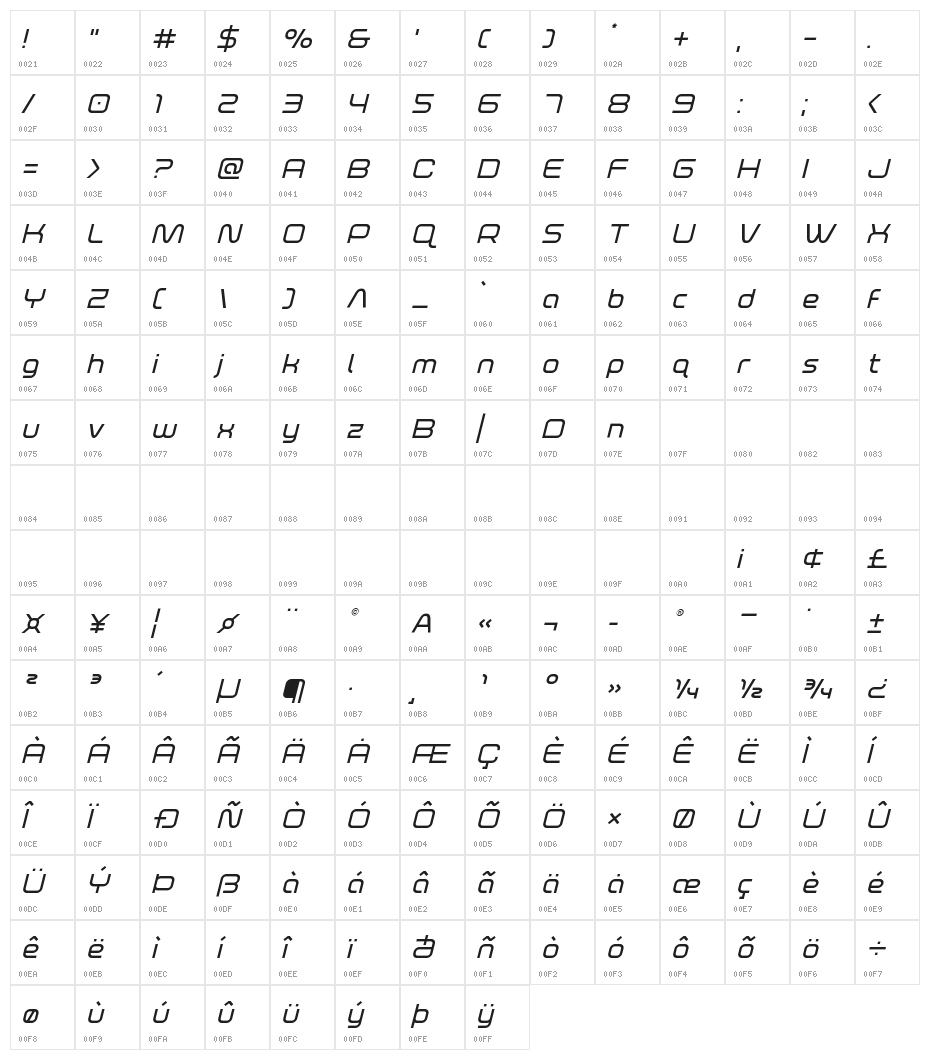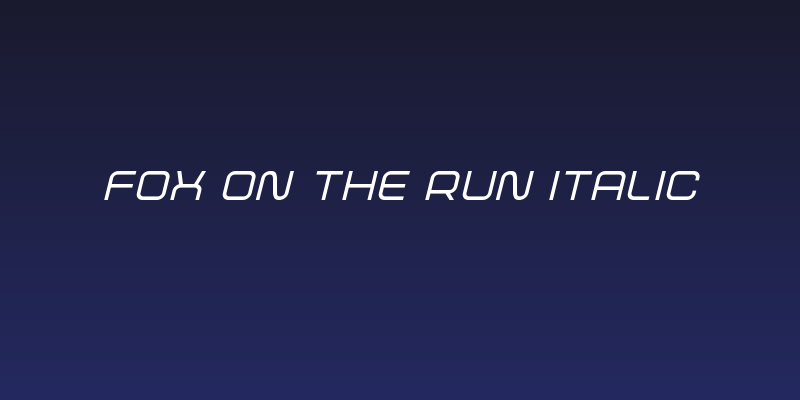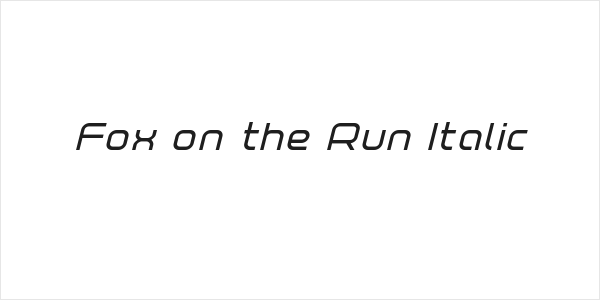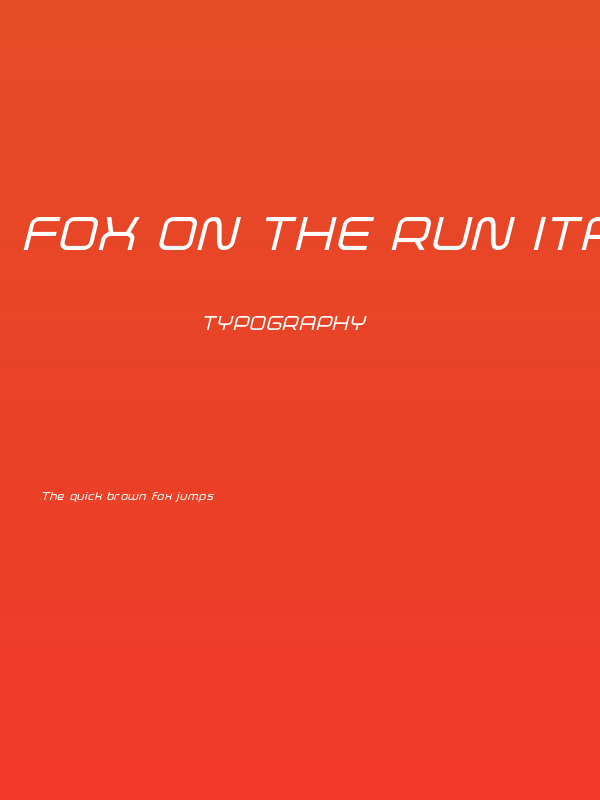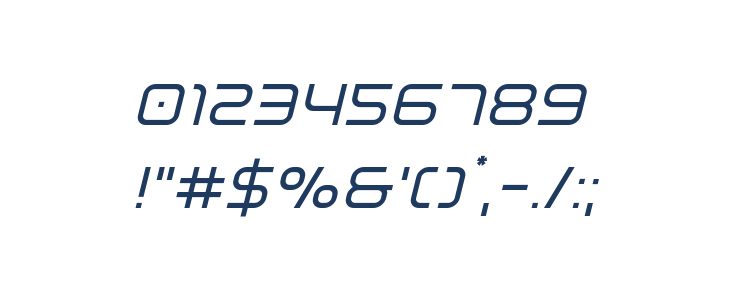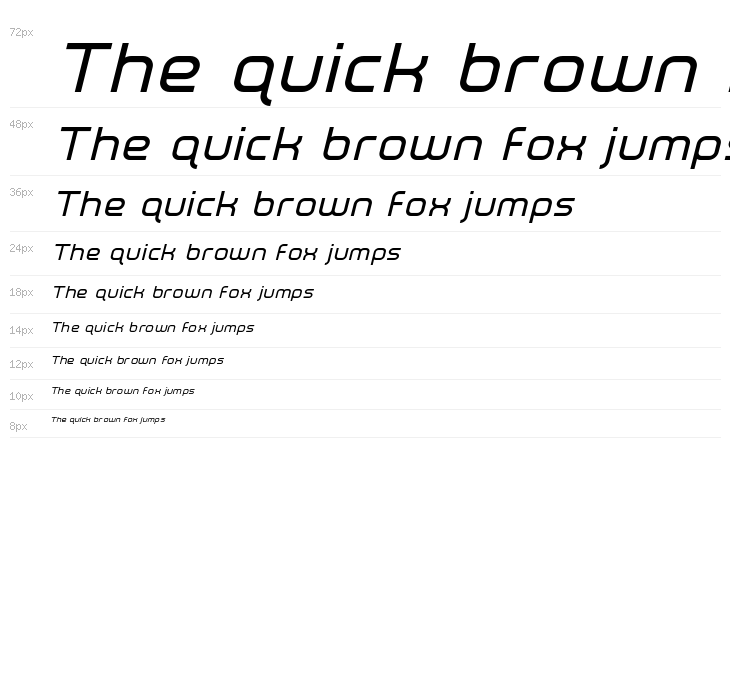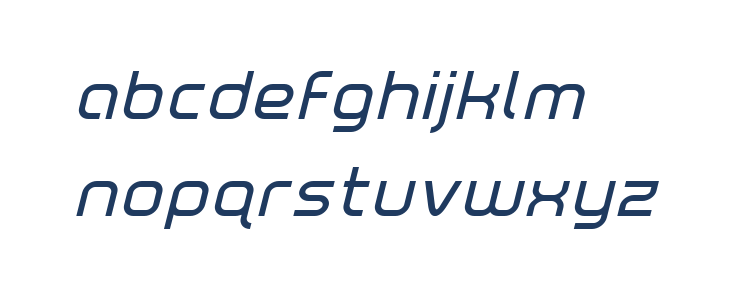
Fox on the Run Italic Font
Fox on the Run Italic Description
This font features a sleek, modern design with a distinct italic slant, giving it a dynamic and forward-moving appearance. The characters are slightly condensed, contributing to a streamlined look that is both stylish and functional. The strokes are consistent in weight, providing a uniform appearance across all characters. The rounded edges soften the overall aesthetic, making it approachable while maintaining a sense of professionalism. This font is well-suited for projects that require a contemporary and energetic feel, such as tech branding or sports-related materials. Its clean lines and smooth curves ensure readability, even at smaller sizes.